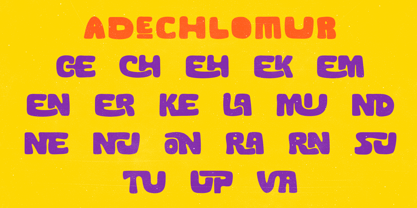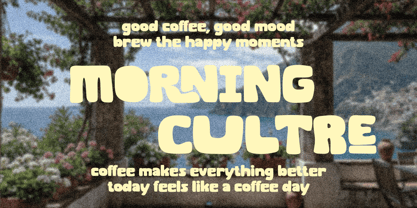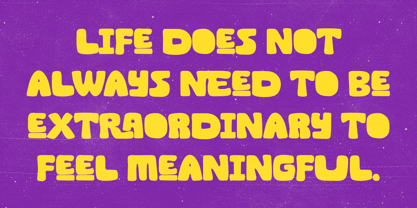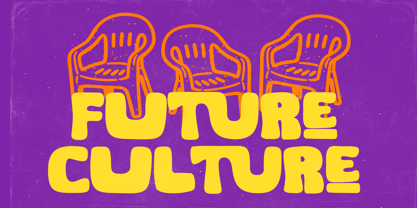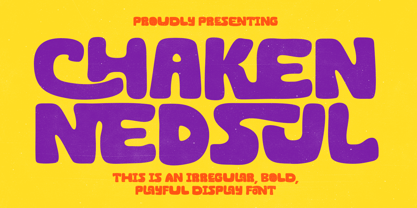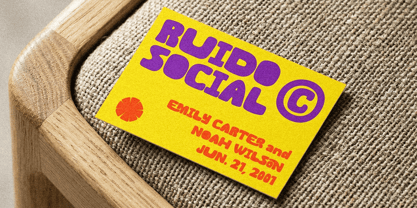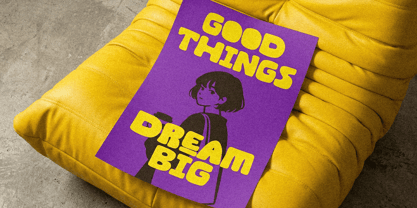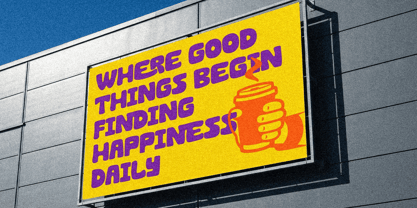
Shaken Nedsul
A família de fontes Shaken Nedsul foi desenhada por Zaki Muhammad e publicada pela madjack.font. Shaken Nedsul contém 1 estilos. Saiba mais sobre esta família
Hi! Let me introduce you to my latest font creation, Shaken Nedsul!
Shaken Nedsul is a bold, cheerful, and characterful display font. Its bold, irregular, and rounded letterforms give it a cheerful, relaxed, and playful feel. This font is perfect for designs that want to attract attention and be energetic, such as posters, product packaging, branding, poster titles, children's designs, and even social media content.
Designers: Zaki Muhammad